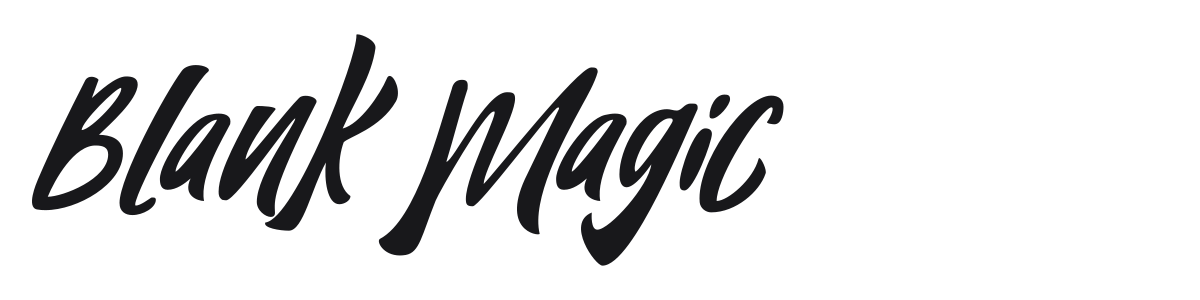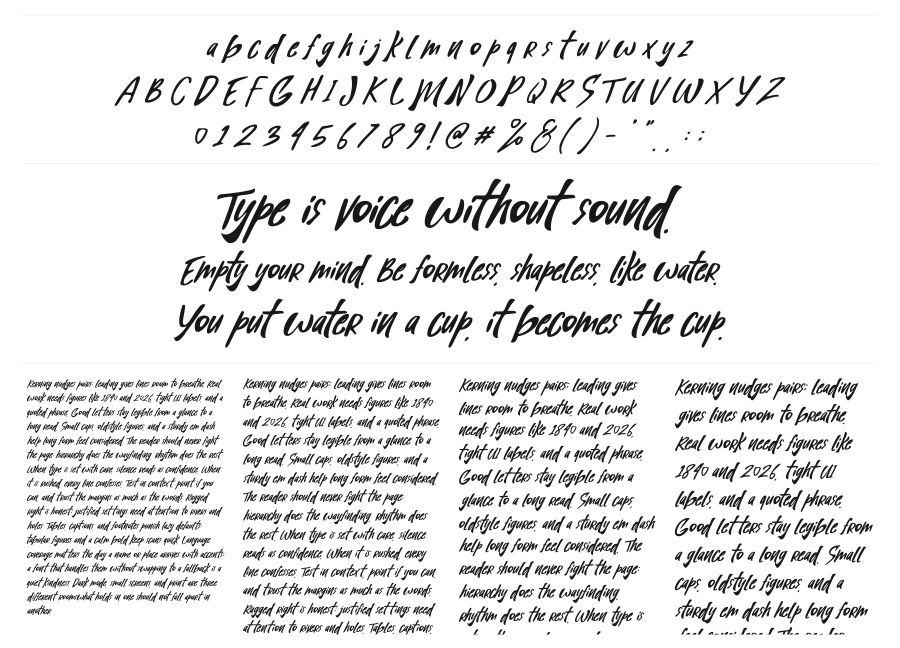
Blank Magic
Blank Magic is a bold casual brush script with the fast, fluid energy of hand lettering done in a single confident stroke. The high contrast between thick downstrokes and thin hairlines gives it visual punch at large sizes. It carries that effortless handmade quality that works well across lifestyle branding, food packaging, and music-adjacent design.